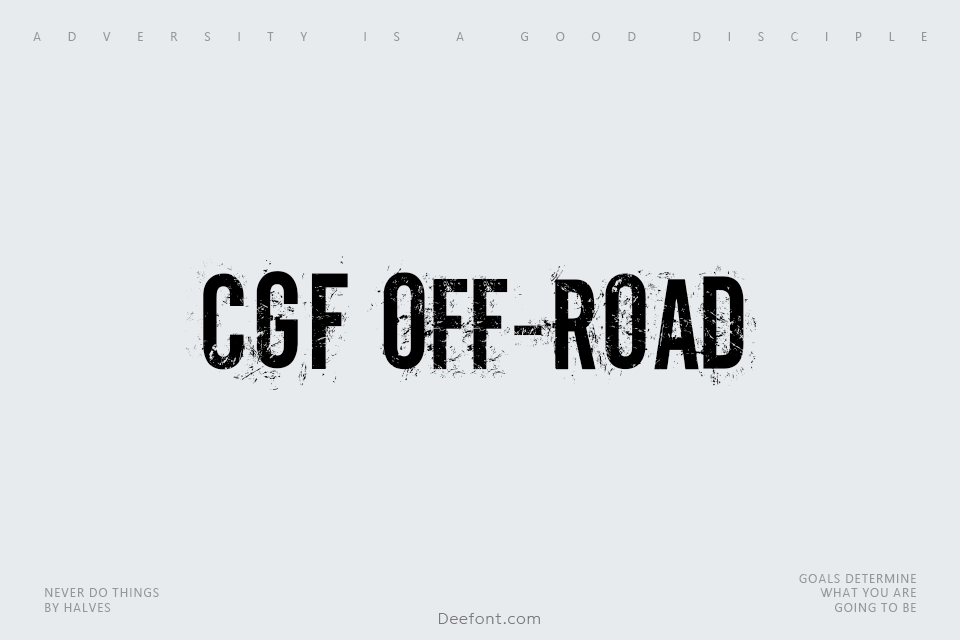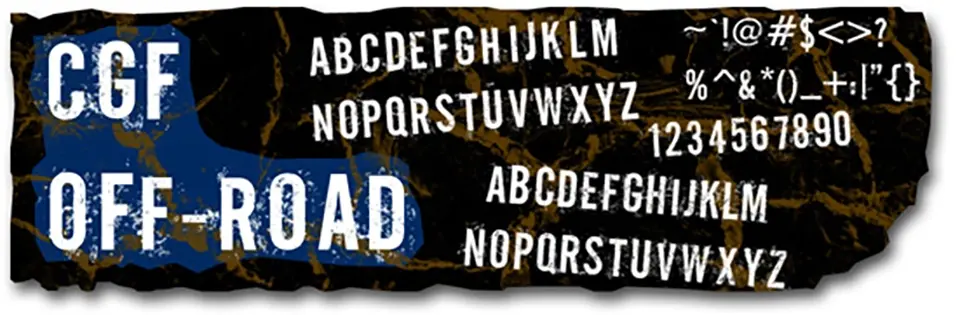
CGF Off-Road Font
CGF Off-Road is a bold, grunge-inspired display typeface featuring a rugged, distressed aesthetic perfect for striking visual compositions. This fancy destroy font combines messy, speckled design elements with angular letterforms to create powerful, eye-catching typography. Ideal for vintage posters, movie titles, album covers, and retro-themed designs, CGF Off-Road delivers strong visual impact through its classic dirty design and weathered character. The font excels in creating attention-grabbing headlines and dramatic display contexts.